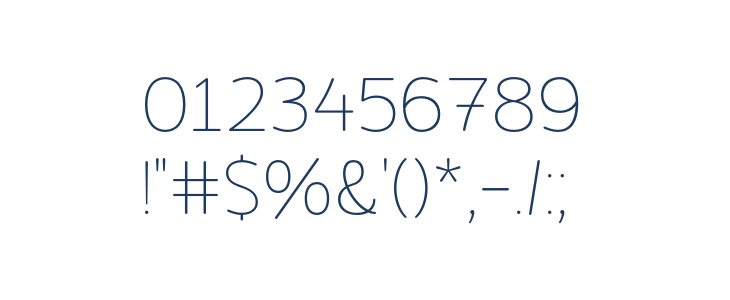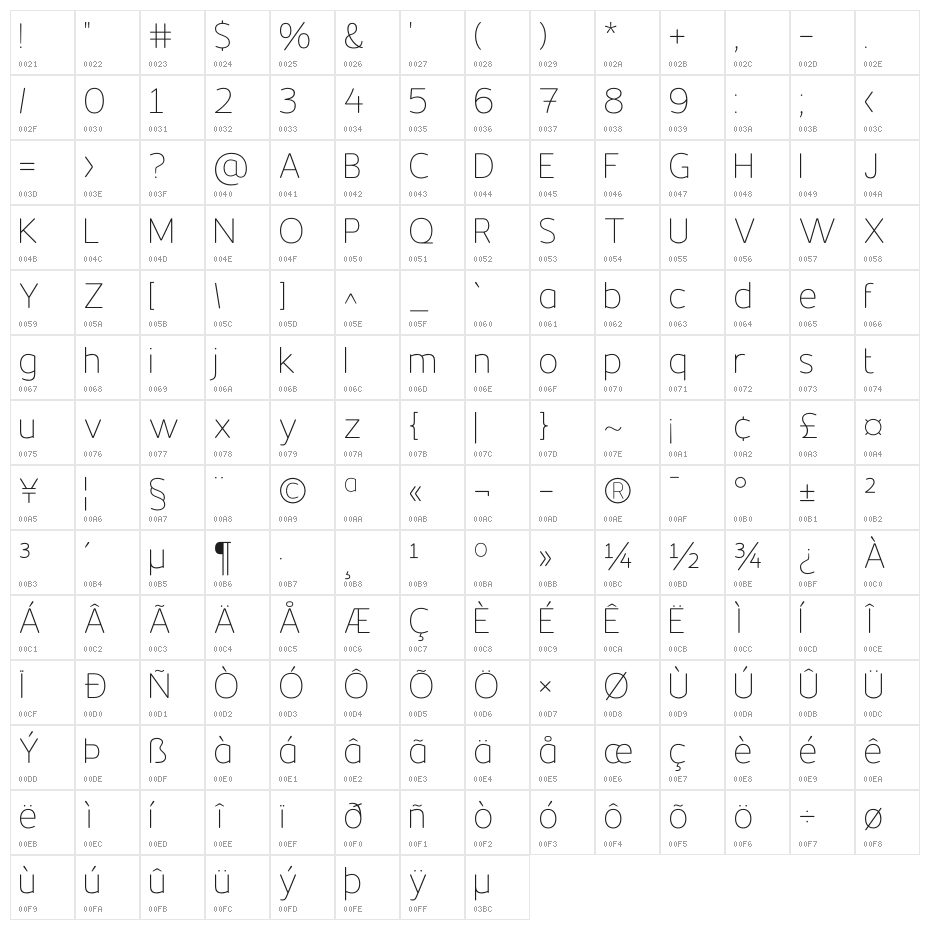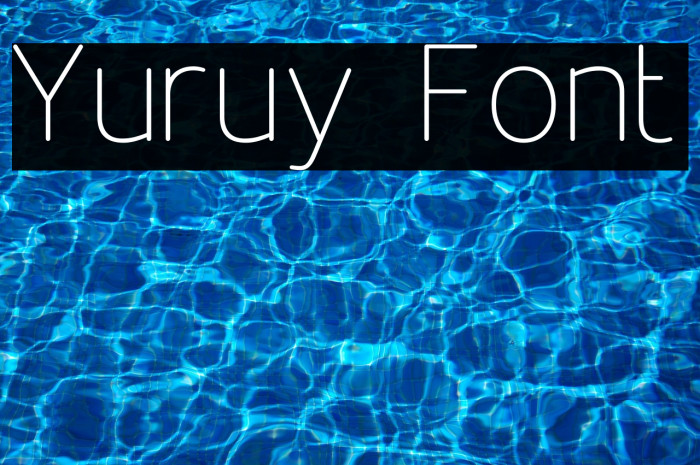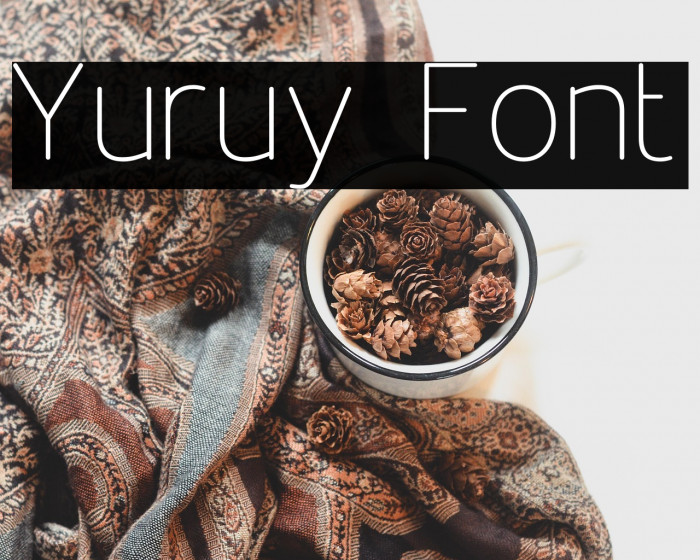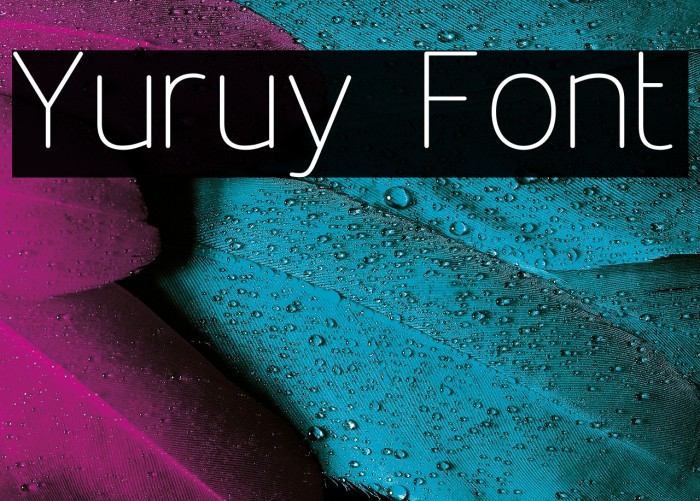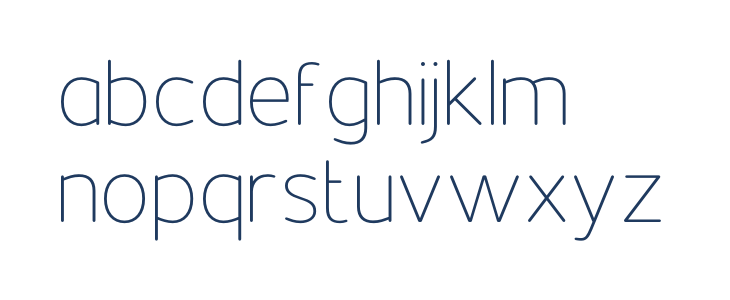
Yuruy Font
Yuruy Description
This font features a clean and modern sans-serif design with a geometric structure. The characters are evenly spaced, providing a balanced and harmonious appearance. The lines are thin and consistent, offering a sleek and minimalist aesthetic. The uppercase and lowercase letters maintain a uniform height, contributing to its readability. The numerals and special characters are designed with the same geometric precision, making them blend seamlessly with the alphabetic characters. This font is versatile, suitable for both digital and print media, and can be used effectively in various design contexts.
Use CaseHeadlines, Body text, Logos
Proposed ProjectsIdeal for branding, web design, editorial layouts, and corporate materials.